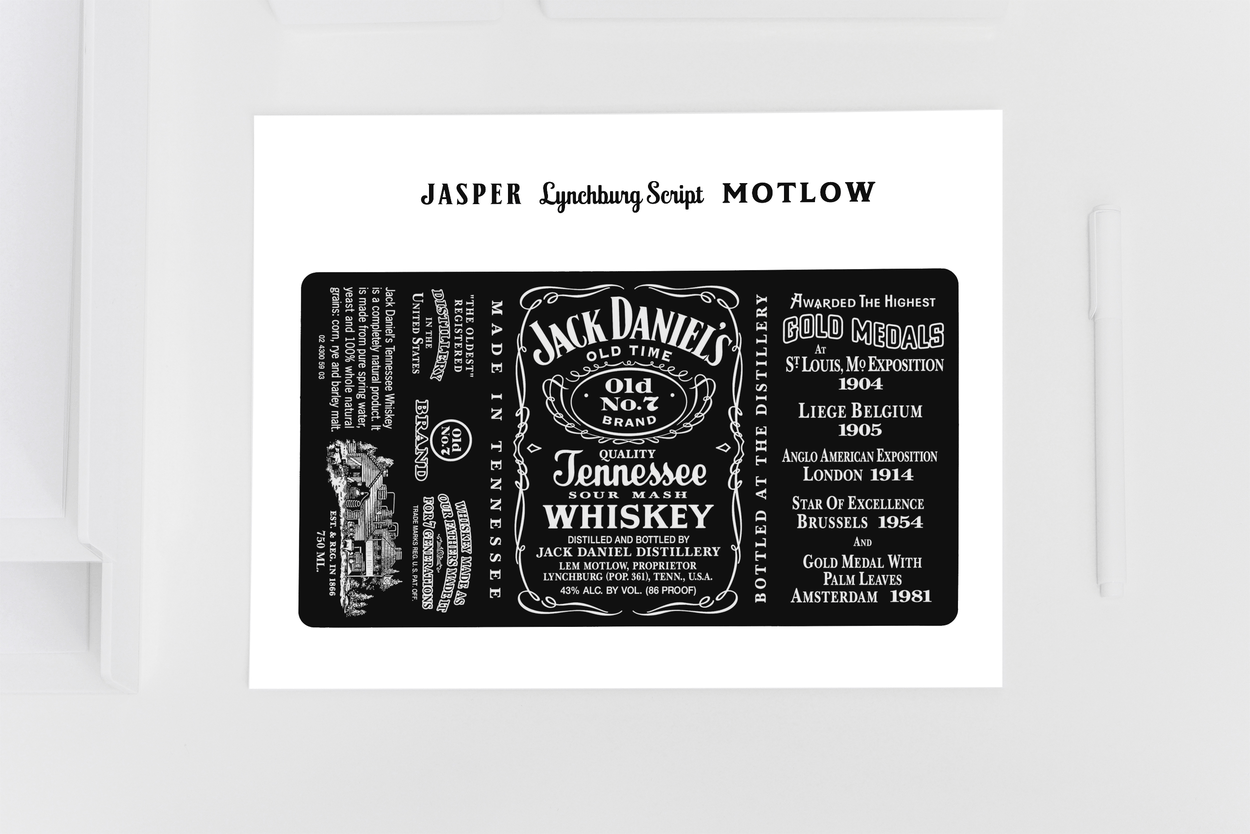
Jack Daniels Font Name
Jack Daniels Font Name. In april 2017 jack daniels has sold over 12.5 million cases and at the end of 2017, this product output is near 16.1 million cases. Top and center is the jasper font, based on the familiar jack daniel's logo lettering (and bearing jack daniel's given first name).
The jack daniel’s is basically a sour mash tennessee whiskey brand found in 1857. The brand’s name is written in custom caps, and it’s close to black no.7 from typocalypse. Typocalypse black no.7 suggested by ga50line.
Jasper Daniels Font Is The Font Used For Logo Of Jasper Daniels.
Rounding Out The Set Is The Solid, Industrious Typeface Named For Lem Motlow, The Nephew Of.
For the project, the three prominent lettering styles from the famous black label (c.1904) were developed into complete fonts. Also, the origin of the company, tennessee, is captured in a handwritten typeface closer to lynchburg script. A custom series of fonts via arnold for jack daniel's distillery.